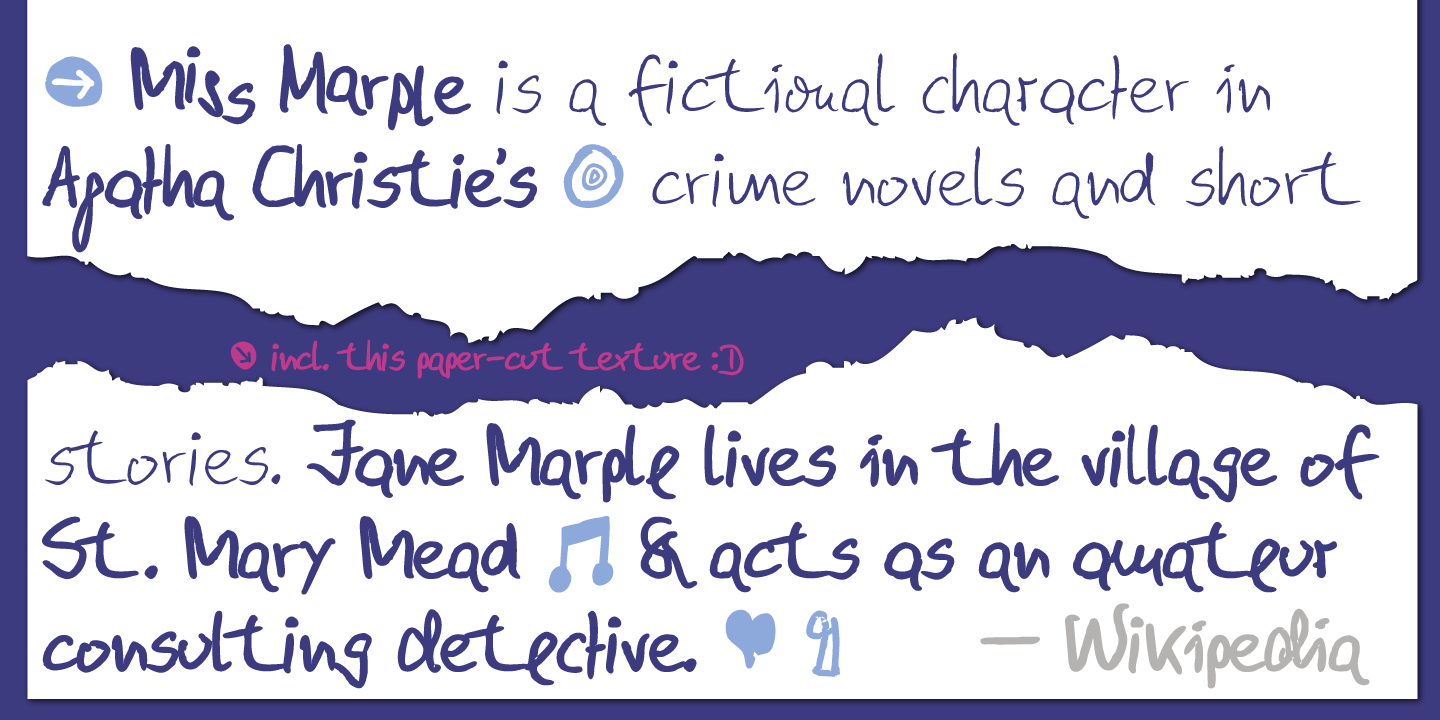
Hand Of Evouli Font is ideal for mystical branding, fantasy book covers, esoteric product packaging, spiritual wellness centers, tarot card designs, metaphysical shop signage, magical event promotions, occult literature, spiritual guidance materials, and ethereal artistic projects. This enchanting typeface works exceptionally well for spiritual practitioners, mystical product creators, fantasy publishers, and metaphysical businesses that want to communicate ancient wisdom, spiritual connection, and mystical authenticity in their visual communications.
What makes Hand Of Evouli Font exciting is its extraordinary ability to channel ancient mystical energies and spiritual wisdom through otherworldly typographic design. The mystically crafted letterforms feature ethereal curves, spiritual symbolism, and transcendent character that instantly transport viewers into realms of higher consciousness and ancient knowledge. Each character has been carefully designed with sacred geometry and mystical intention that ensures excellent readability while maintaining distinctive supernatural appeal. The font's mystical personality makes it perfect for brands that want to communicate spiritual depth, ancient wisdom, and the transformative power of mystical experiences.
The Hand Of Evouli Font family includes multiple mystical variations featuring Light Spirit, Regular, Bold Mystic, and Ancient Wisdom styles with additional sacred symbols and ethereal flourishes. Each style maintains the font's characteristic mystical essence while providing different levels of spiritual intensity and otherworldly atmosphere. The complete family ensures thematic consistency across all materials while giving designers the flexibility to create transcendent layouts that capture the profound energy and spiritual beauty of mystical traditions.
Professional designers and spiritual brand specialists will appreciate how Hand Of Evouli Font Free Download transforms ordinary projects into extraordinary mystical experiences. Whether you're designing for spiritual practitioners, metaphysical products, or esoteric publications, this font delivers exceptional performance in creating memorable spiritual impressions. The ethereal character shapes and mystical styling make it particularly effective for spiritual branding, metaphysical marketing, and sacred content where mystical authenticity matters most.
The versatility of Hand Of Evouli Font extends across numerous spiritual and mystical design applications. It works beautifully in spiritual branding, metaphysical publishing, sacred art projects, mystical advertising, and transcendent marketing campaigns. The font's ethereal presence makes it ideal for brands targeting spiritual seekers, mystical practitioners, and audiences exploring consciousness expansion and ancient wisdom.
For designers seeking a font that embodies mystical wisdom with spiritual authenticity, Hand Of Evouli Font represents the perfect transcendent choice. Its ethereal appearance suits spiritual brands while maintaining excellent legibility across all mystical applications. The font's sacred baseline and mystical proportions create profound visual hierarchies that communicate spiritual depth and authentic mystical connection.